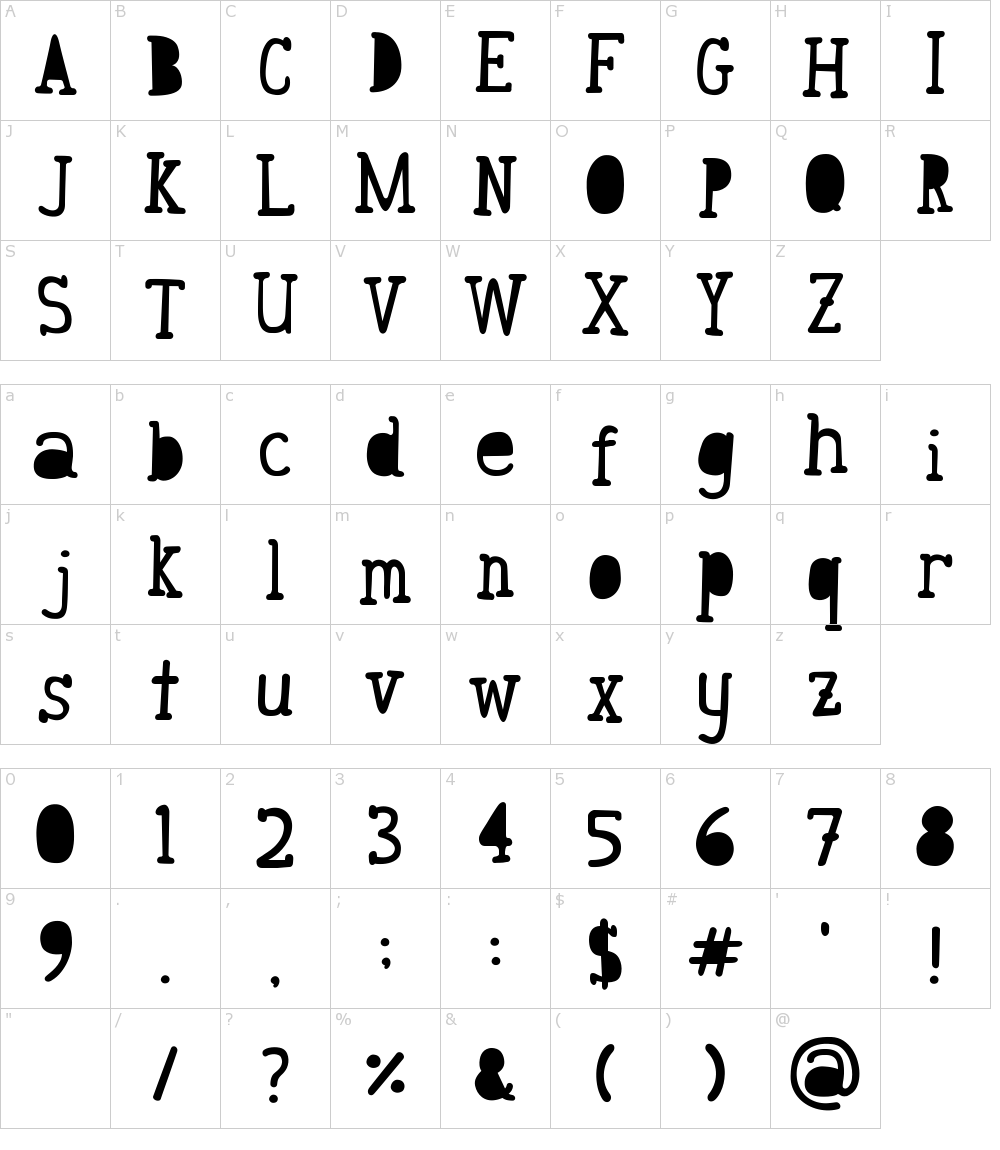
Css control easily style icon color, size, shadow, and anything that's possible with css. Autism awesome is a thick lettered and incredibly unique decorative font. And helps introduce first time customers to your products with free font downloads and allow.